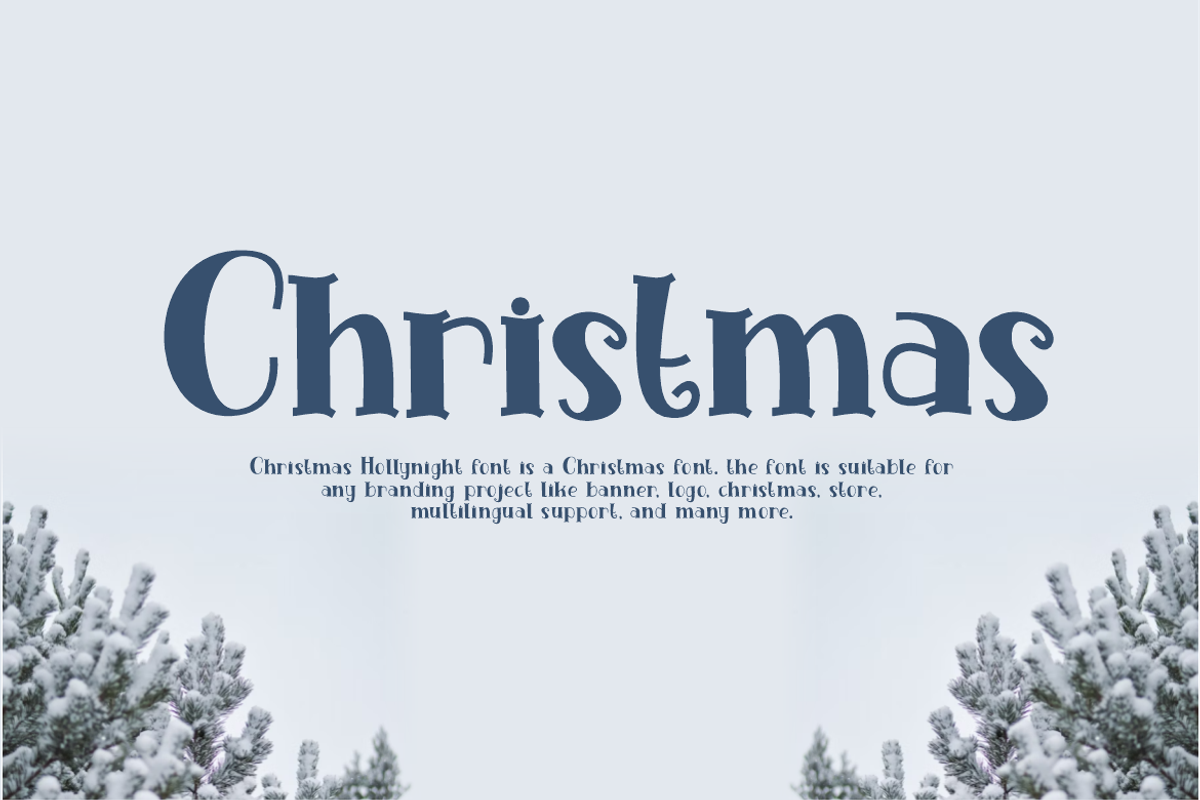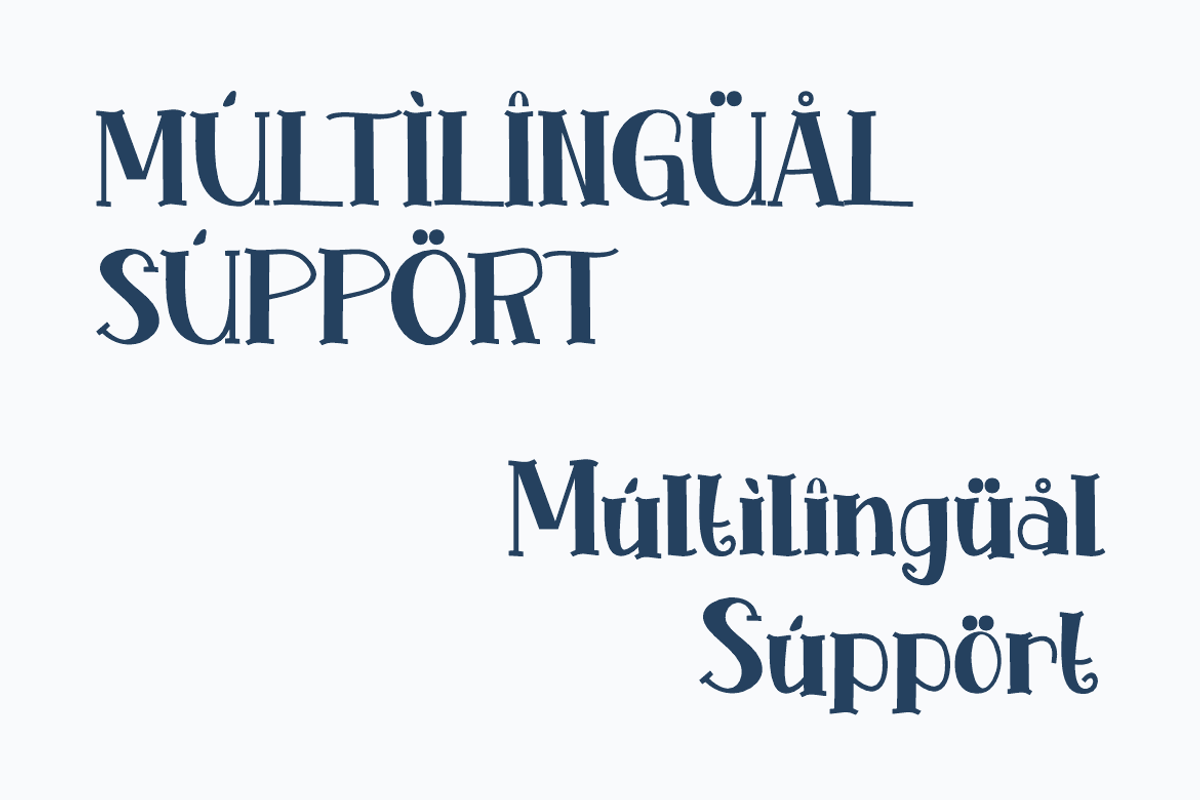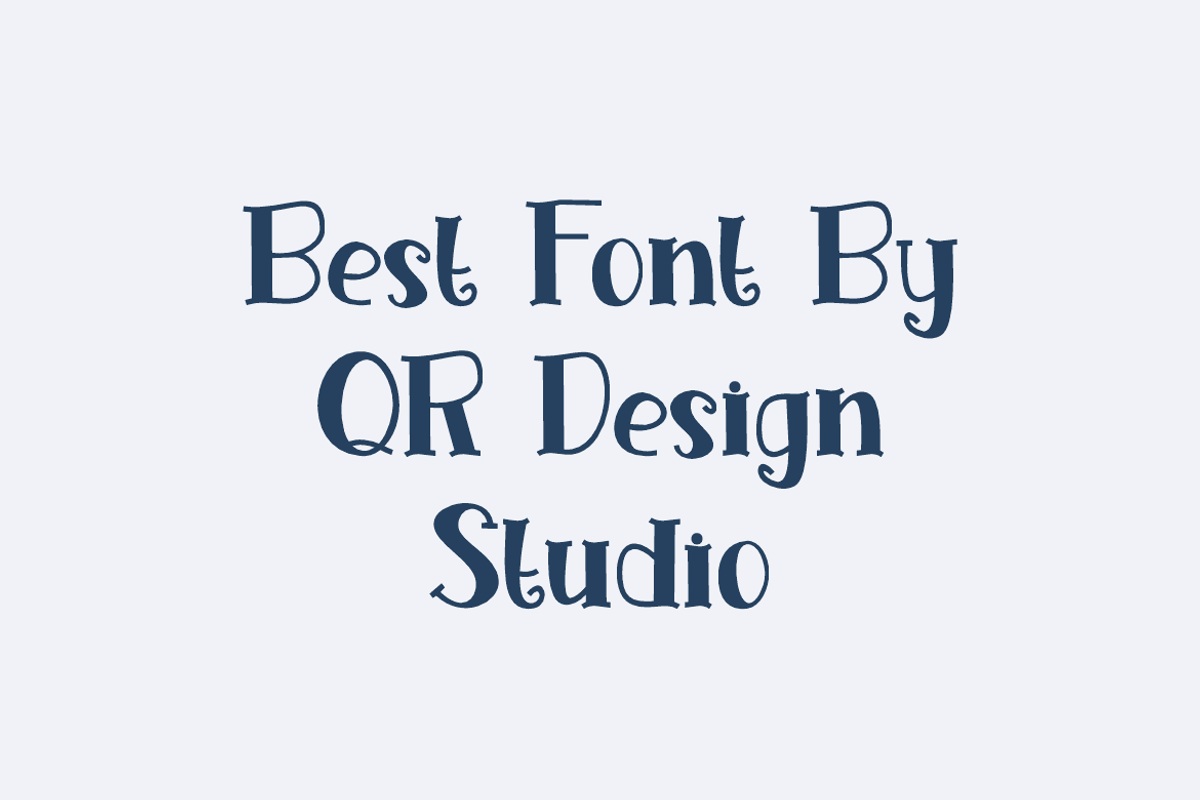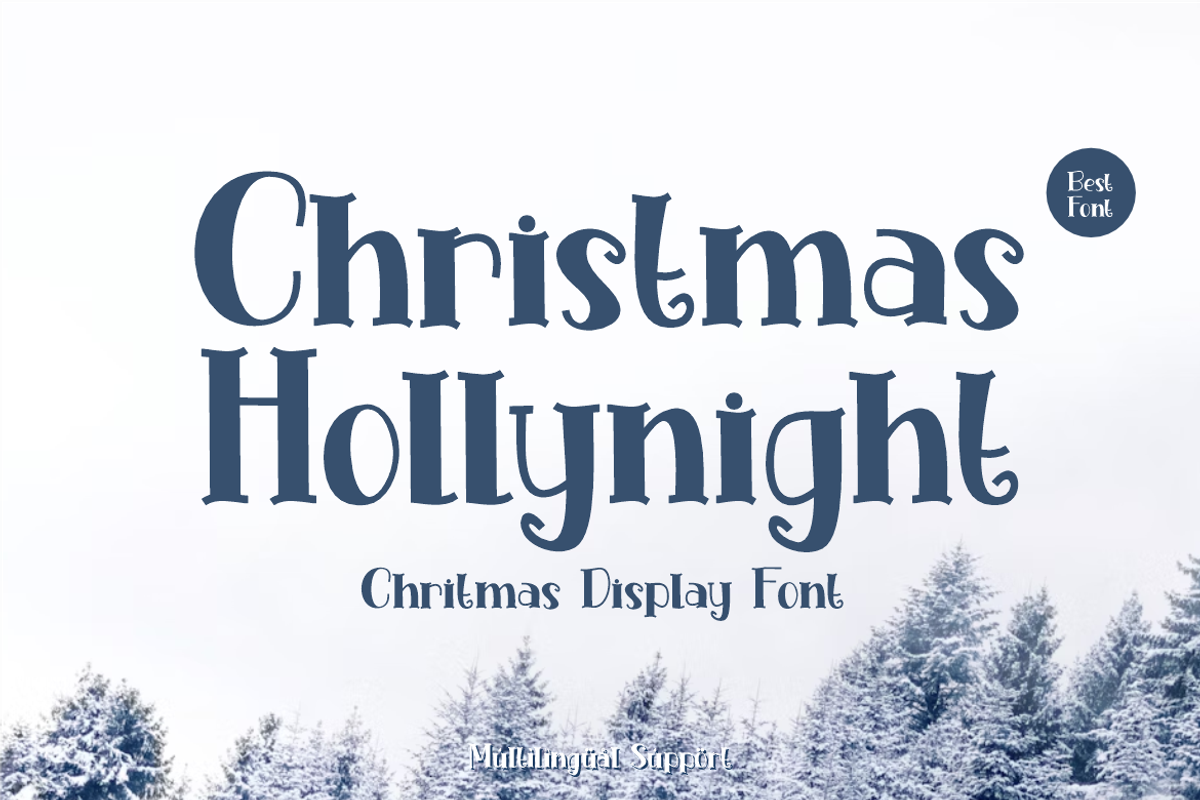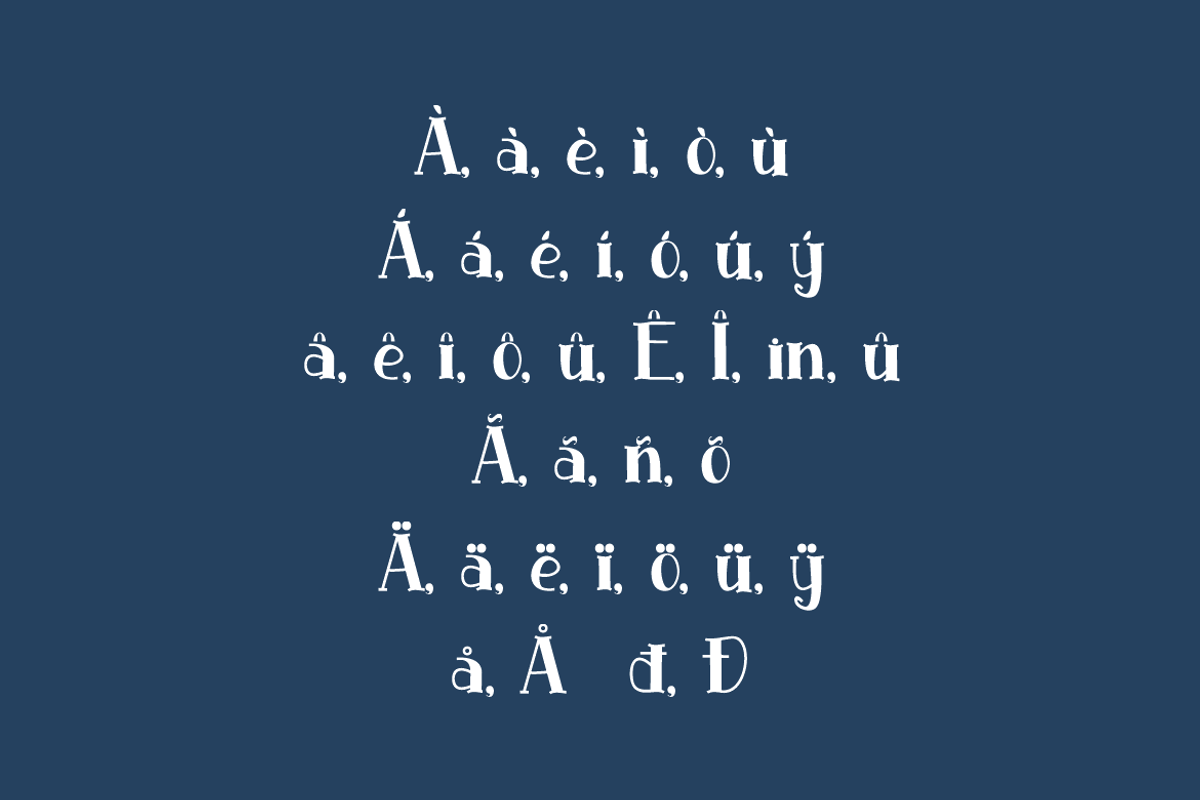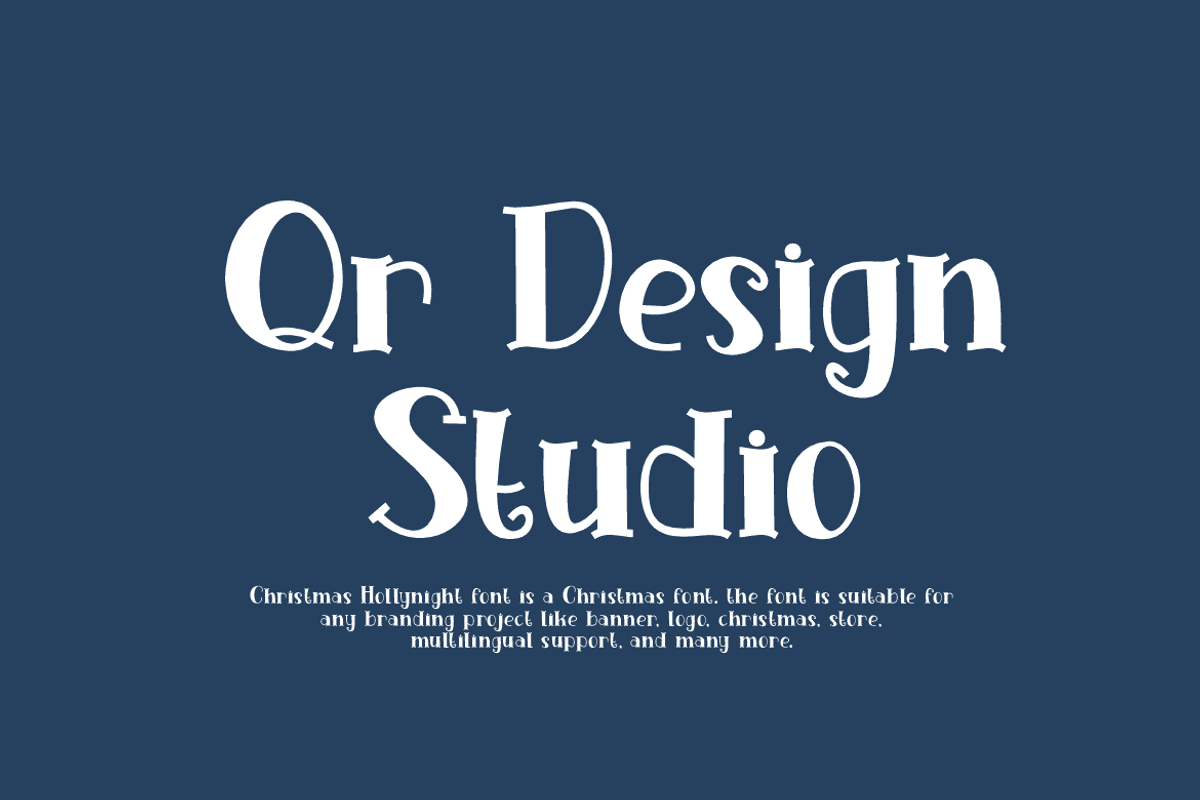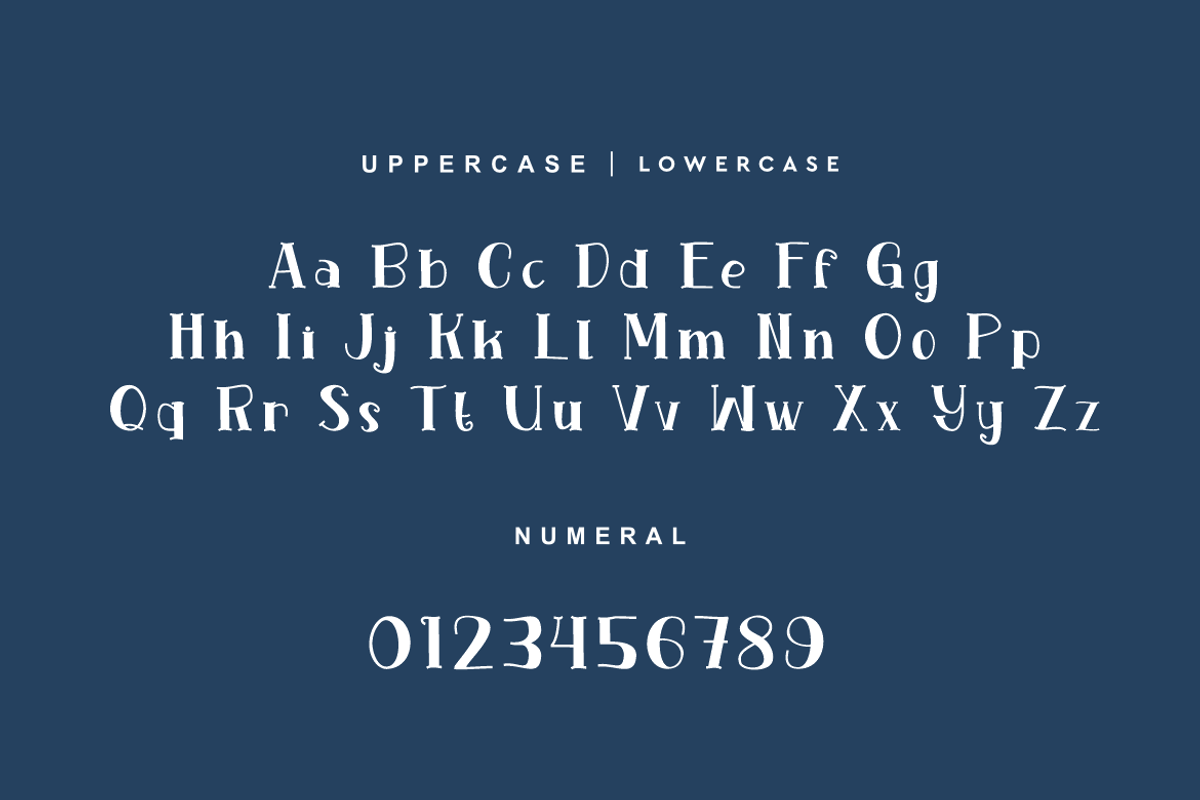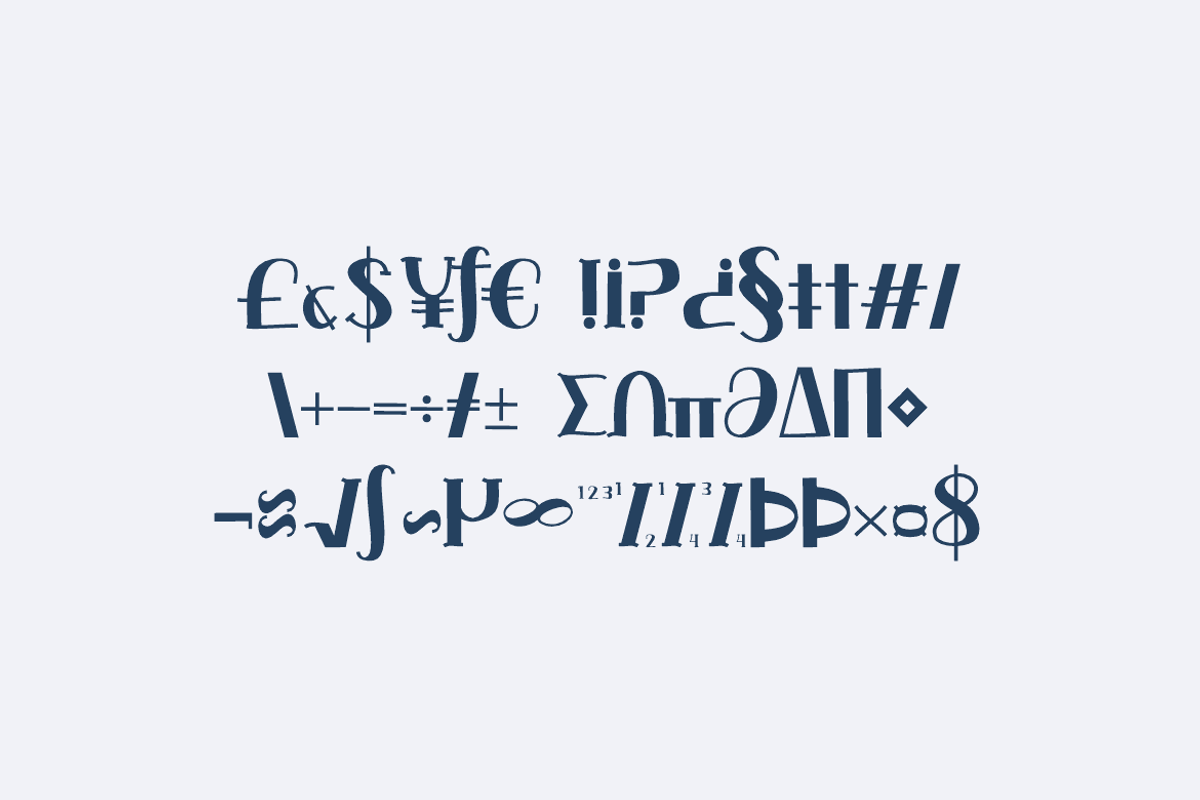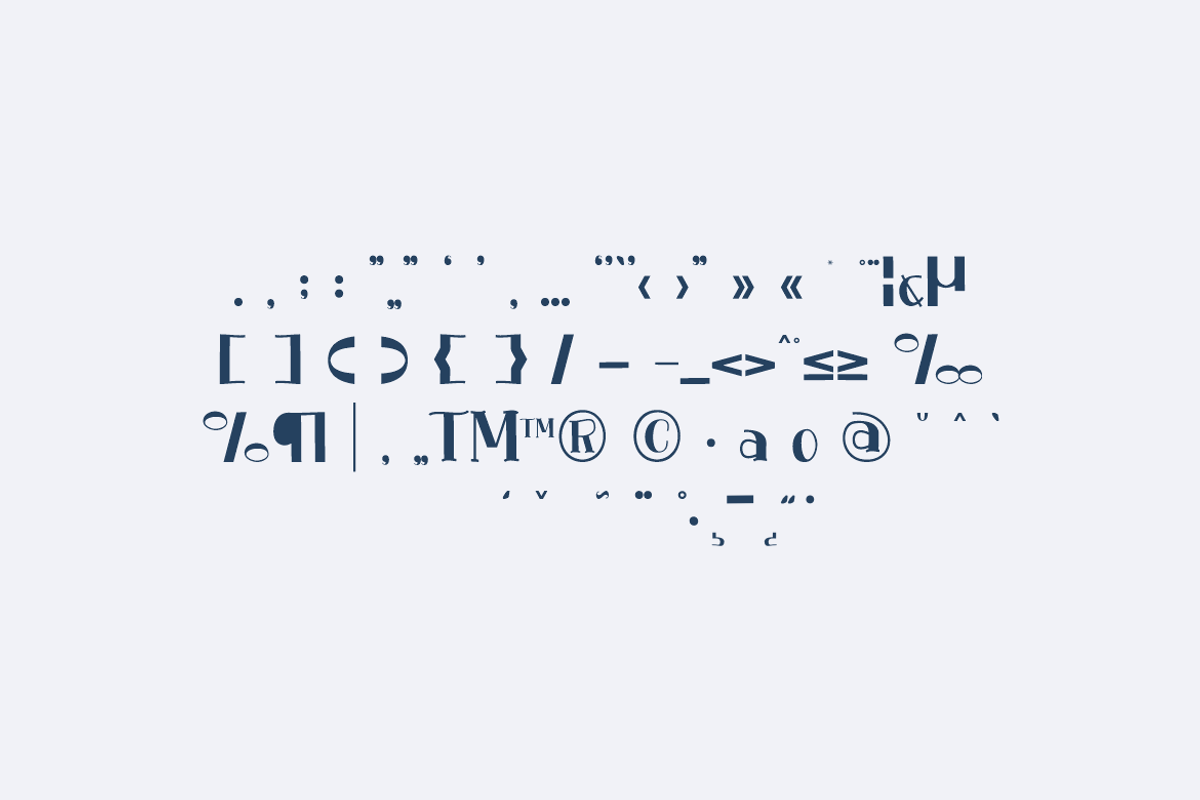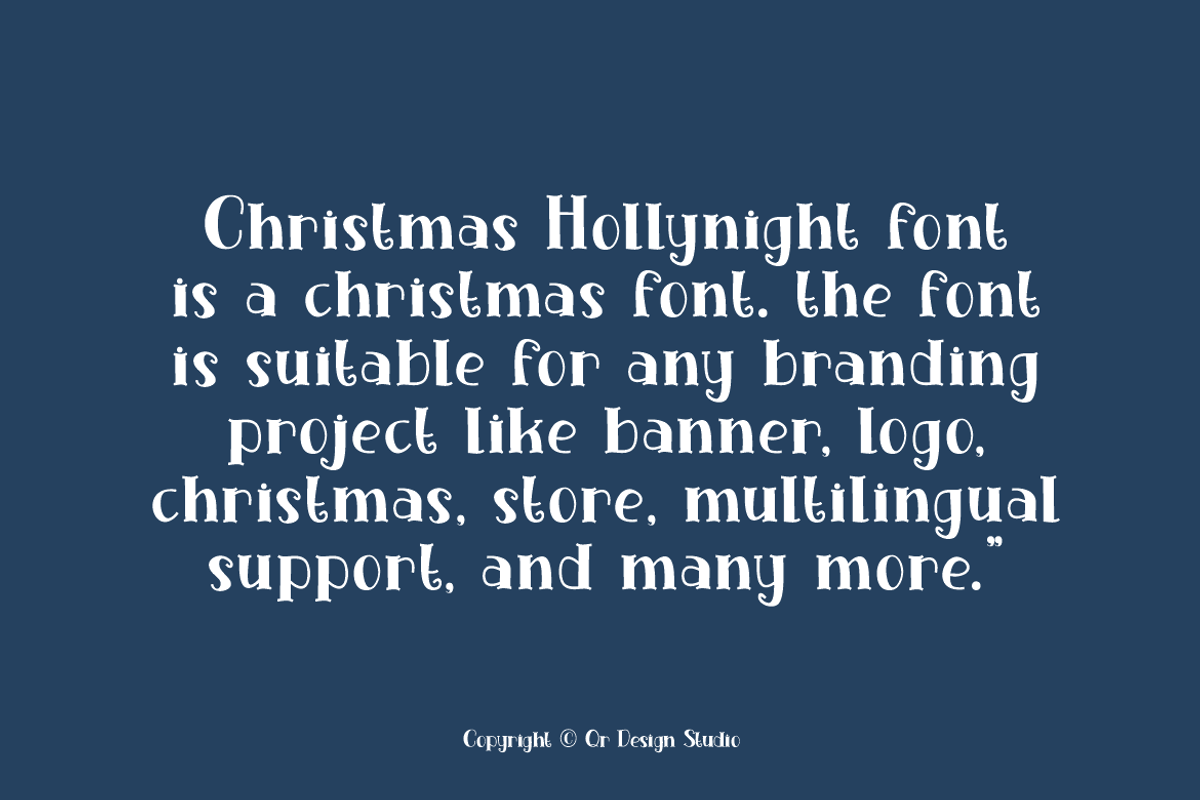
Christmas Hollynight Font
Christmas Hollynight Font is a best and authentic display font. The font is suitable for any branding project like poster, logo, christmas, and many more. Outstanding in a wide range of contexts.